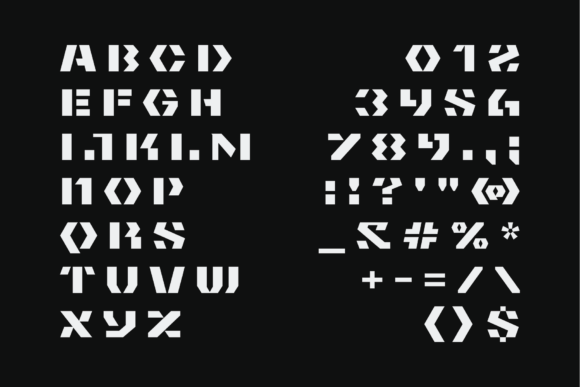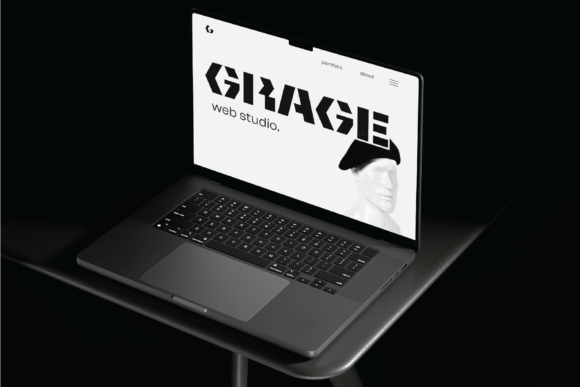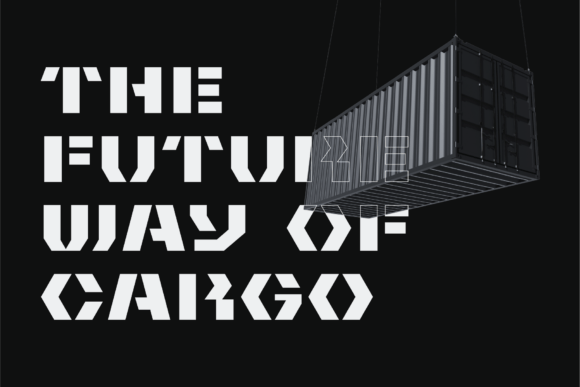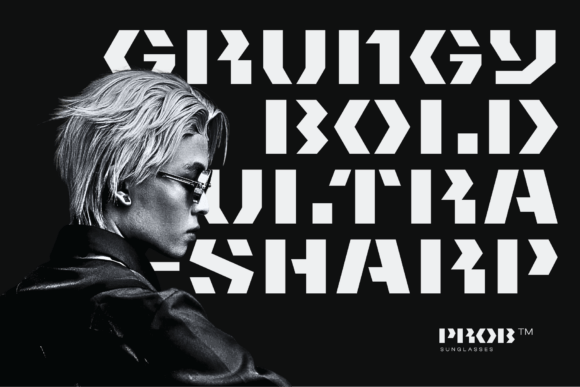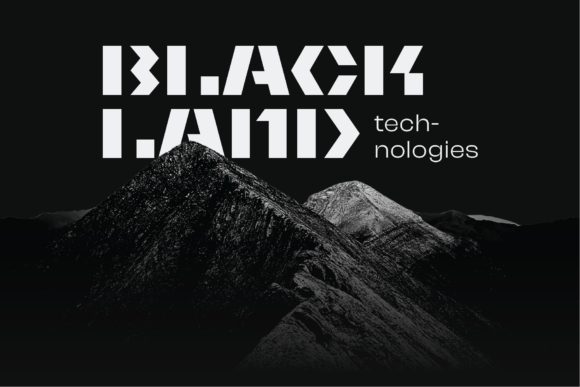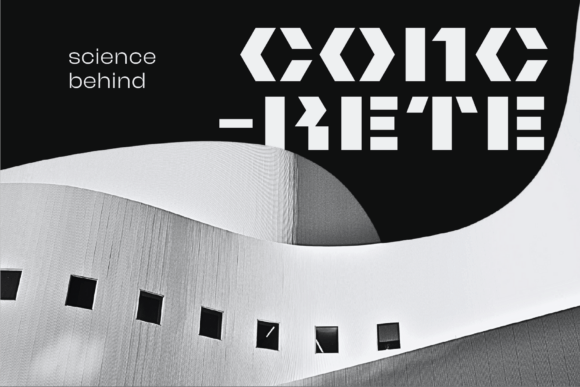
Introduction to Obac Font
Obac is a bold geometric font that delivers a futuristic vibe.
Obac display font is designed for maximum impact Its sharp angles, clean lines, and modular stencil cuts create a striking industrial aesthetic thatโs perfect for technology, cyberpunk, gaming, and military-inspired designs.